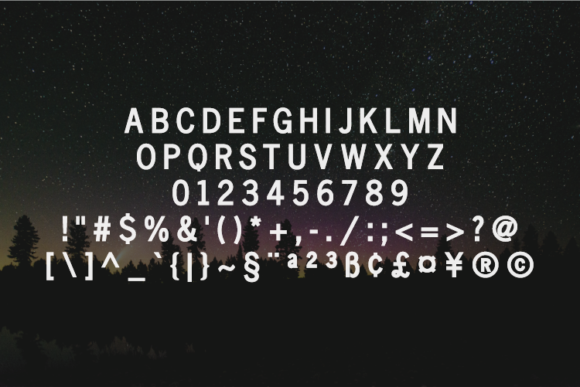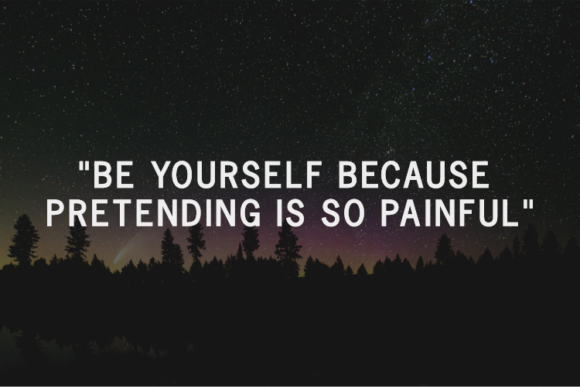
Bredtford Font: The Ultimate Sans Serif for Creative Projects
In the world of typography, a good font can make all the difference in elevating your design to the next level. If you’re a designer, craftsperson, or simply someone who appreciates the art of typography, you’re in luck! Introducing Bredtford, a minimal and neat sans serif font that’s about to become your new go-to for a wide range of creative projects.
The Versatility of Bredtford
Bredtford is more than just a font – it’s a design solution. Its clean lines, simple shapes, and uncluttered aesthetic make it the perfect match for an incredibly large set of projects. Whether you’re working on a modern logo, a sleek website, a stylish poster, or a beautiful craft project, Bredtford is the ideal choice. Its versatility knows no bounds, and it’s up to you to explore the endless possibilities.
What Makes Bredtford Stand Out?
So, what sets Bredtford apart from other sans serif fonts out there? For starters, its minimalistic design gives it a timeless quality that won’t go out of style anytime soon. Additionally, its neat and organized structure makes it highly legible, even at smaller font sizes. This means you can use Bredtford for body text, headings, or even titles, without sacrificing readability.
Why Designers and Crafters Love Bredtford
Designers and crafters alike will appreciate the flexibility and creativity that Bredtford brings to the table. Here are just a few reasons why:
- Ease of use: Bredtford is incredibly easy to use, even for those who are new to design or typography. Its simple and intuitive design makes it easy to pair with other fonts, colors, and design elements.
- Highly legible: As mentioned earlier, Bredtford is highly legible, even at smaller font sizes. This makes it perfect for body text, captions, or any other type of content where readability is key.
- Customizable: Bredtford can be customized to fit your specific design needs. Whether you want to adjust the font size, color, or style, Bredtford adapts seamlessly to your creative vision.
- Timeless design: Bredtford’s minimalistic design ensures that it won’t go out of style anytime soon. This means you can use it for projects that require a long-term design solution.
How to Use Bredtford in Your Projects
Now that you’re excited about Bredtford, it’s time to learn how to incorporate it into your creative projects. Here are a few ideas to get you started:
- Logos and branding: Use Bredtford as a primary font for your logo, or as a supporting font to add texture and depth to your brand identity.
- Web design: Bredtford is perfect for web design, from headings and titles to body text and captions.
- Print design: Use Bredtford for posters, flyers, brochures, and any other print materials where a clean and modern aesthetic is desired.
- Crafting and DIY: Bredtford can add a touch of modern elegance to your crafting and DIY projects, from handmade cards to woodworking and beyond.
In conclusion, Bredtford is a game-changing sans serif font that’s about to become your new favorite design companion. Its versatility, legibility, and timeless design make it the perfect match for a wide range of creative projects. Whether you’re a designer, craftsperson, or simply someone who appreciates great typography, Bredtford is sure to elevate your designs and inspire your creativity. So why wait? Add Bredtford to your font collection today and discover a world of limitless design possibilities!